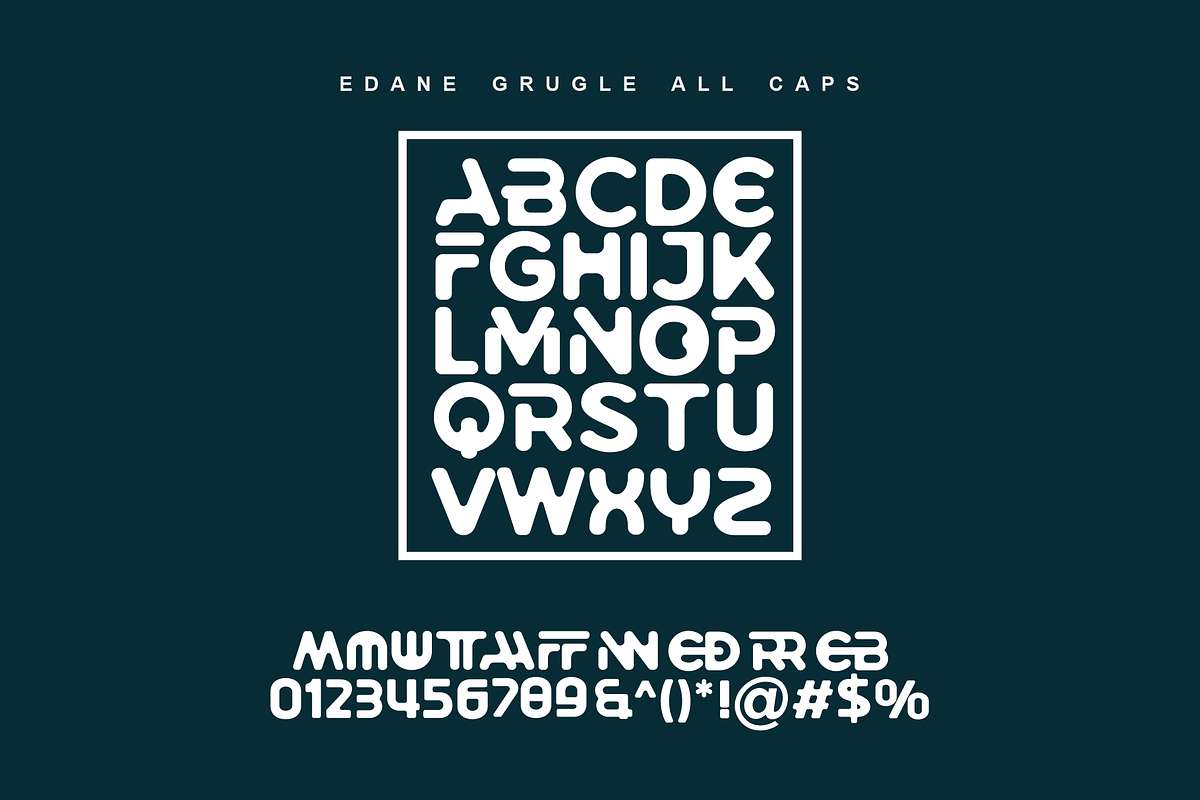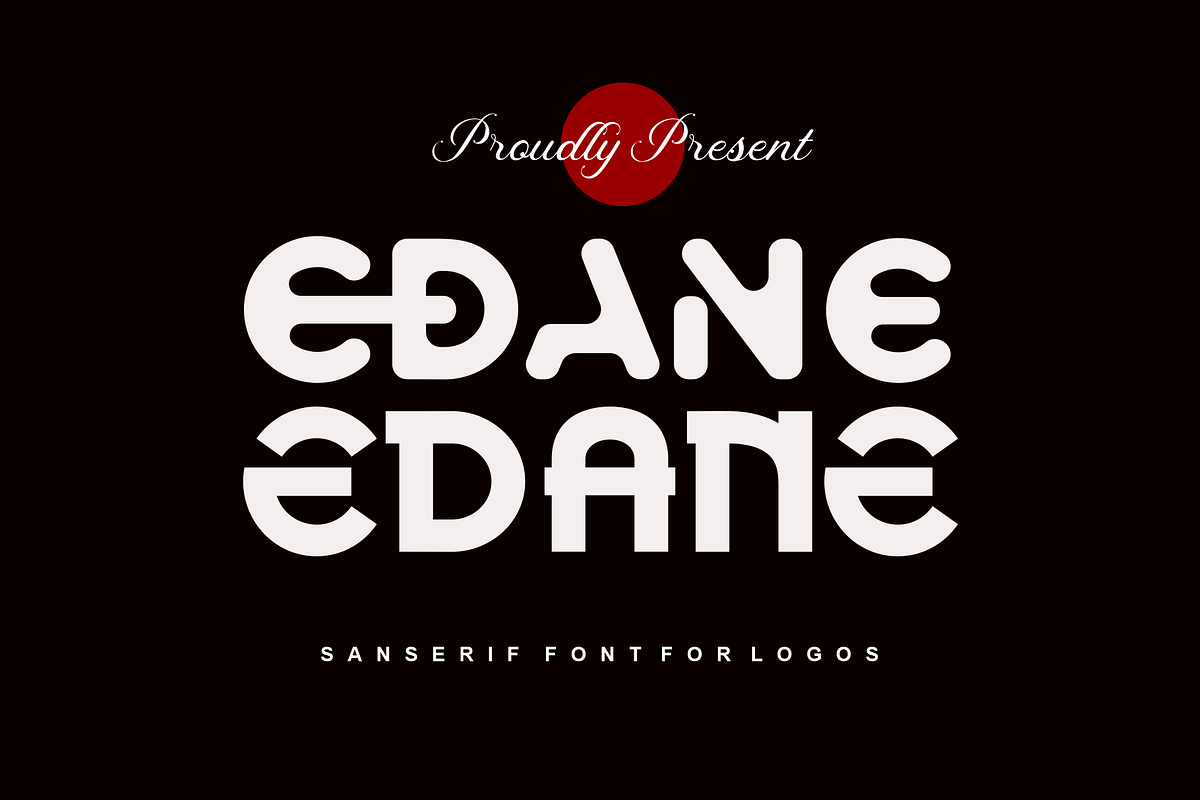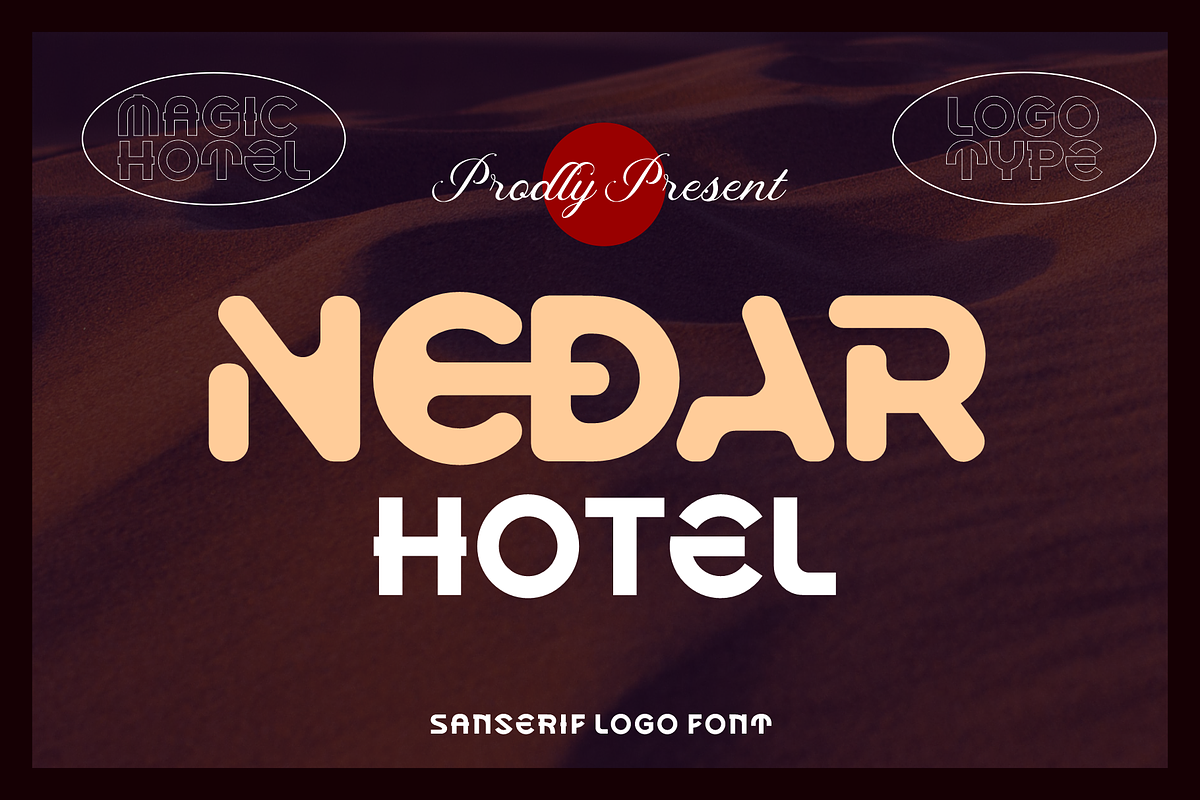
EDANE SANS SERIF FONT FOR LOGOS
THE EDANE FONT IS A SANSERIF FONT WITH TWO WEIGHTS, REGULAR AND GRUGLE.
EACH FONT HAS ITS OWN UNIQUE ALTERNATIVES AND LIGATURES.
THIS FONT IS VERY SUITABLE FOR HOTEL LOGO, T-SHIRT LOGO, DISCOUNT FLYER, TV AND MORE.